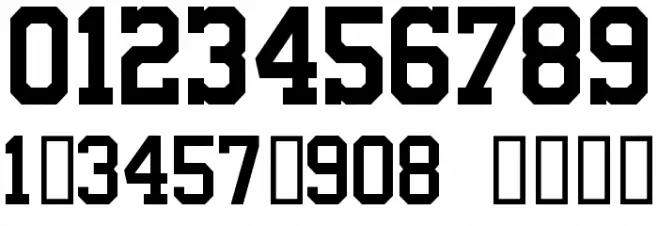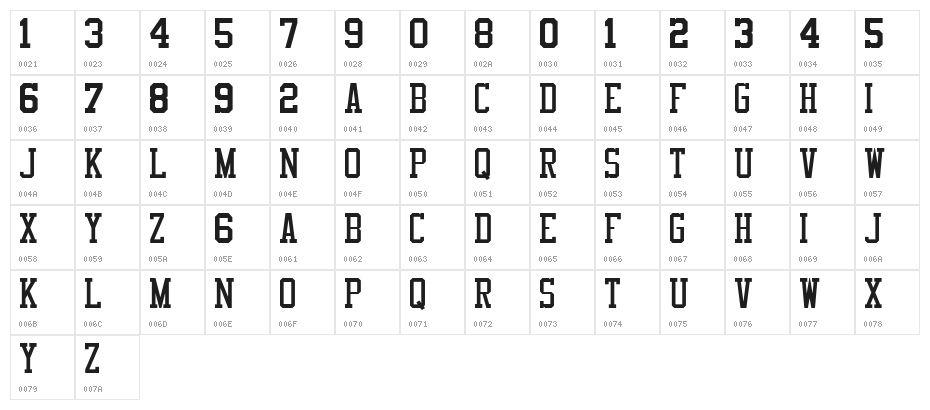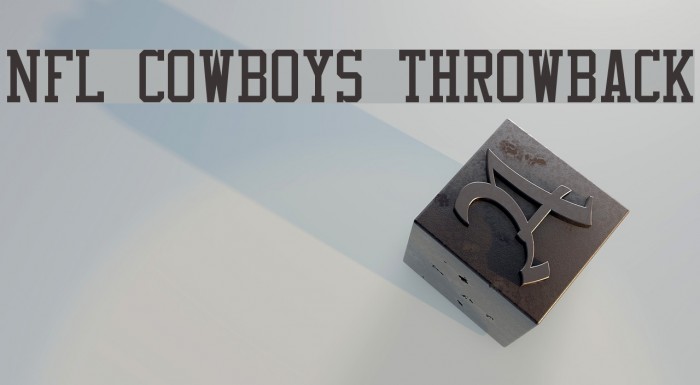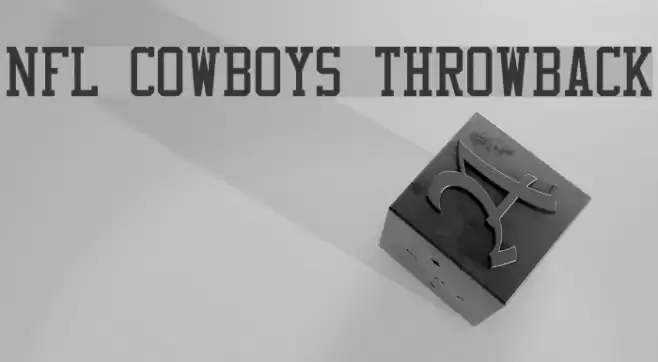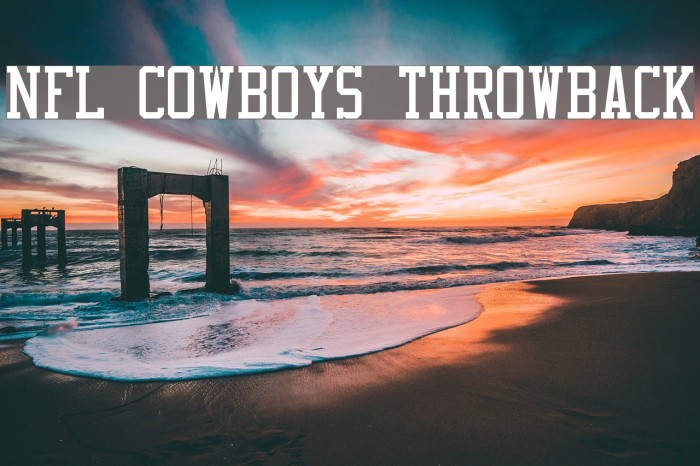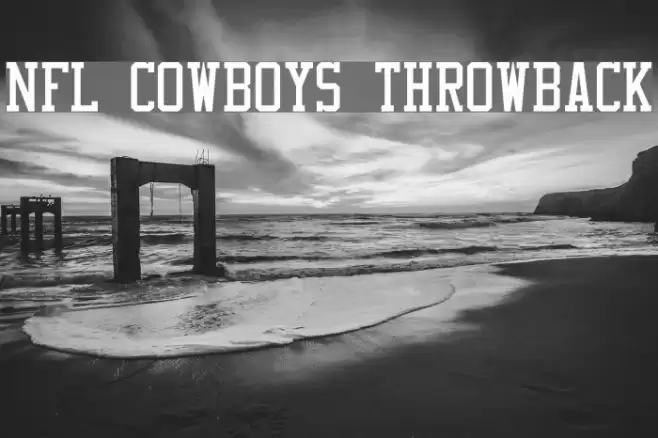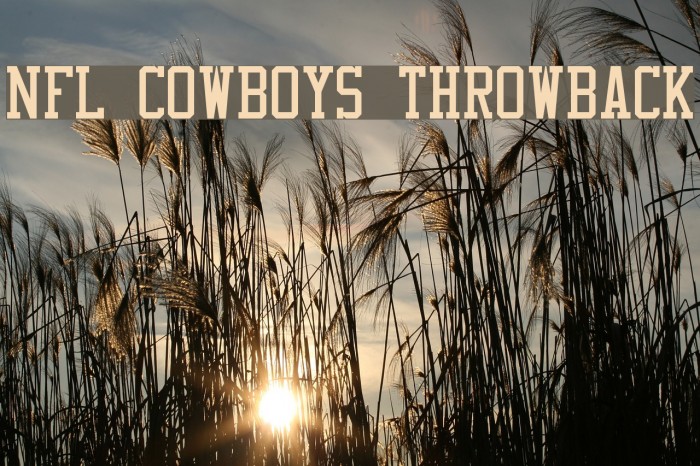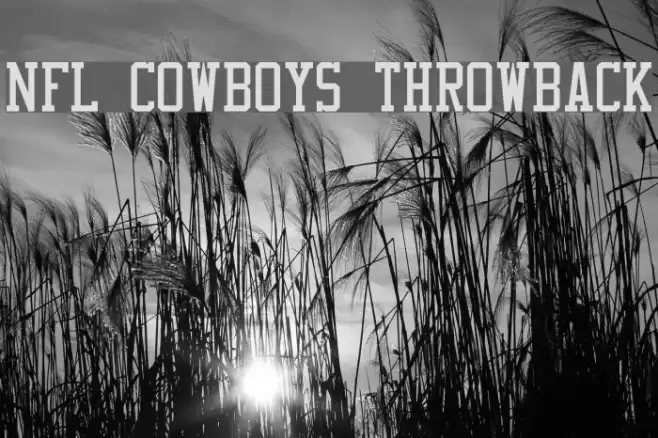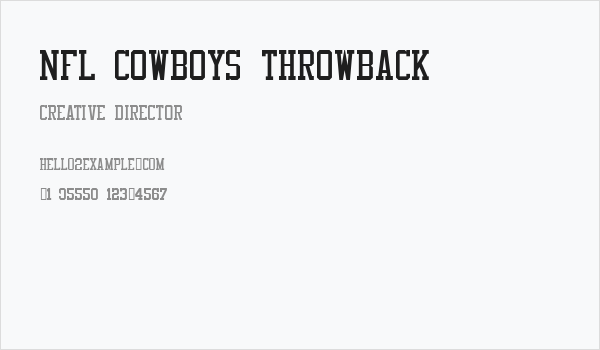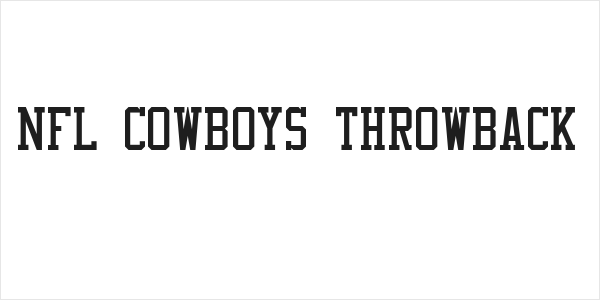
NFL Cowboys Throwback Font
NFL Cowboys Throwback Description
This font features a bold, athletic style reminiscent of classic sports jerseys. The characters are blocky and robust, with a strong presence that commands attention. The uppercase letters are particularly striking, with sharp angles and a uniform height that creates a cohesive look. The numbers are equally bold, designed to stand out with their thick strokes and clear legibility. This font is perfect for projects that require a sporty, vintage feel, such as team branding, sports event posters, or retro-themed designs. The overall aesthetic is both nostalgic and powerful, making it ideal for capturing the spirit of athleticism and competition.
| Proposed Projects | Ideal for sports branding, event posters, and retro-themed designs. |